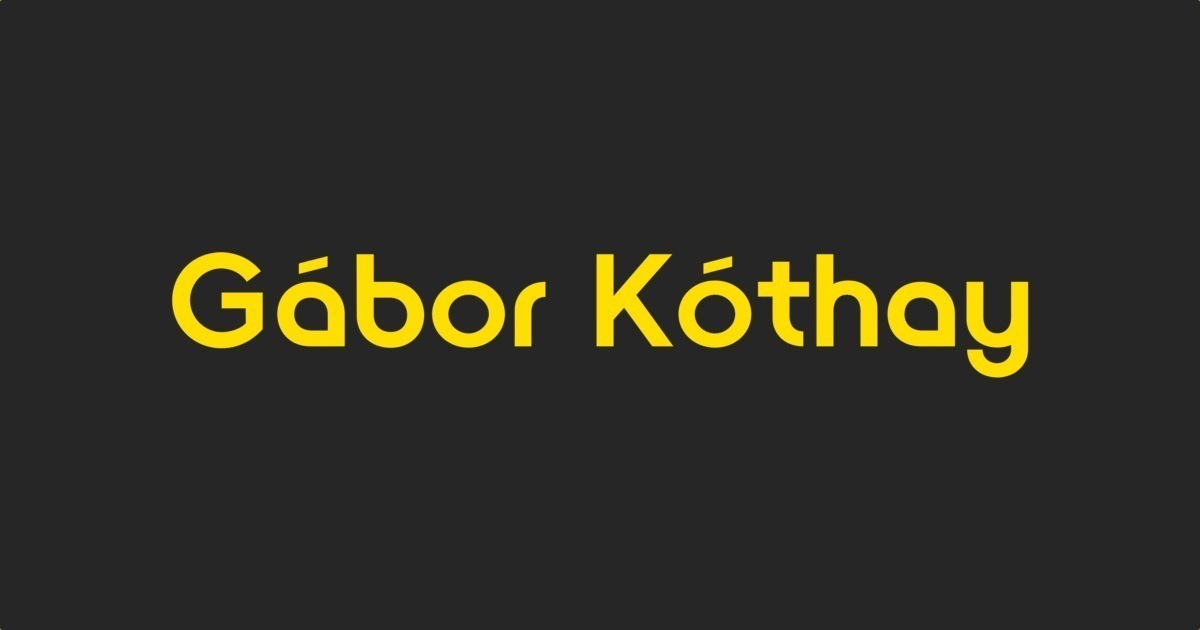
Dessau Designed Font
Dessau Designed Font is perfect for architectural branding, design studios, modern logos, creative agencies, minimalist packaging, industrial design, contemporary signage, artistic publications, professional presentations, and sophisticated visual communications. This distinctive typeface excels in both digital and print applications requiring design-forward aesthetics.
Dessau Designed Font is exciting because it captures the essence of modernist design principles with geometric precision and functional beauty that reflects architectural thinking while maintaining excellent readability. Its design-conscious character creates memorable brand experiences that resonate with audiences who appreciate innovative design and creative excellence.
The Dessau Designed Font family includes regular, bold, light, italic, condensed, extended, and geometric variants, providing designers with comprehensive typographic options for various design scenarios and architectural communication requirements.
Dessau Designed Font embodies the revolutionary spirit of modernist design, delivering exceptional typography that reflects the influential design principles and architectural innovation associated with the legendary Bauhaus movement. This sophisticated typeface combines geometric precision with functional aesthetics, creating letterforms that communicate design excellence, creative innovation, and progressive thinking. The font's architectural character makes it particularly valuable for design studios, architectural firms, creative agencies, and innovative brands that require typography capable of conveying artistic authority, design expertise, and forward-thinking vision.
The structural foundation of Dessau Designed Font demonstrates masterful understanding of modernist design principles, with geometric construction and balanced proportions that create sophisticated compositions reflecting architectural thinking and systematic design approach. This methodical precision ensures excellent performance across diverse creative applications, from architectural presentations to brand communications where design credibility is paramount. The font's progressive qualities make it especially effective for brands in architecture, industrial design, furniture manufacturing, and creative services that celebrate innovation and functional beauty.
Creative professionals working with Dessau Designed Font Free Download will appreciate the typeface's versatility across modernist and contemporary design challenges. Its architectural styling bridges historical design legacy with current aesthetic trends, making it suitable for established design institutions and innovative creative startups requiring credible, sophisticated typography. The font's authoritative presence makes it particularly effective for museums, design schools, creative conferences, and cultural organizations that must communicate design expertise through refined, intellectually rigorous visual design.
Whether developing design-focused brand identities, creating architectural communications, or designing creative marketing materials, Dessau Designed Font provides the typographic authority needed for communications that inspire creative confidence and establish design leadership while maintaining professional credibility and achieving recognition within demanding creative and architectural communities.